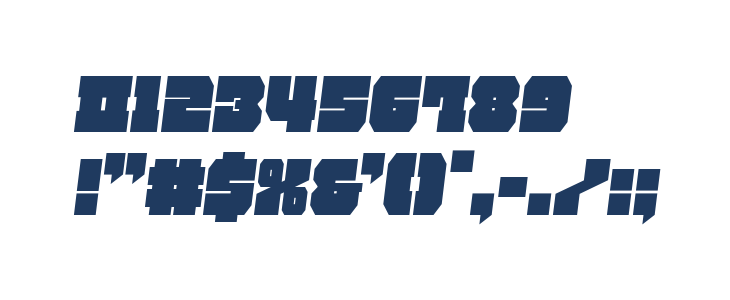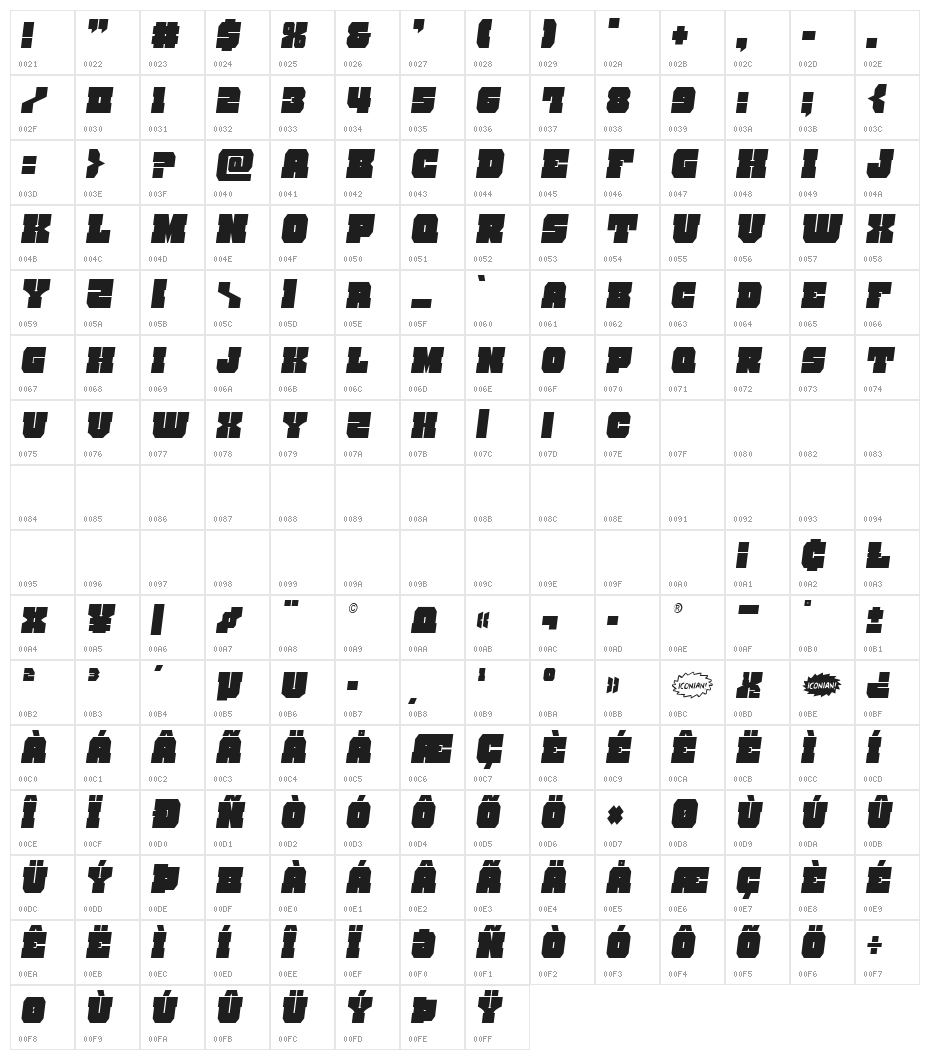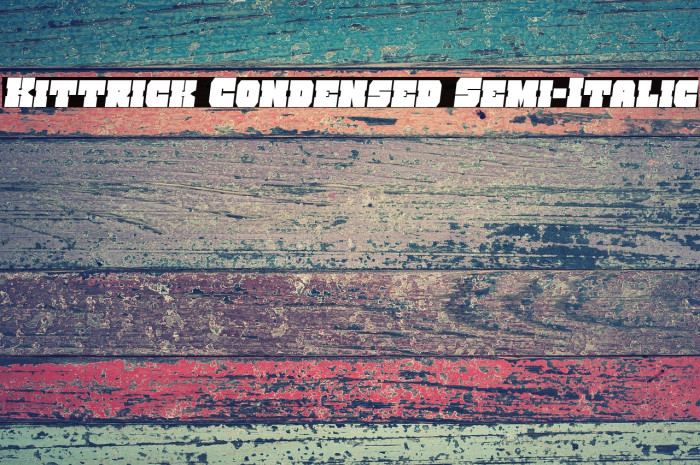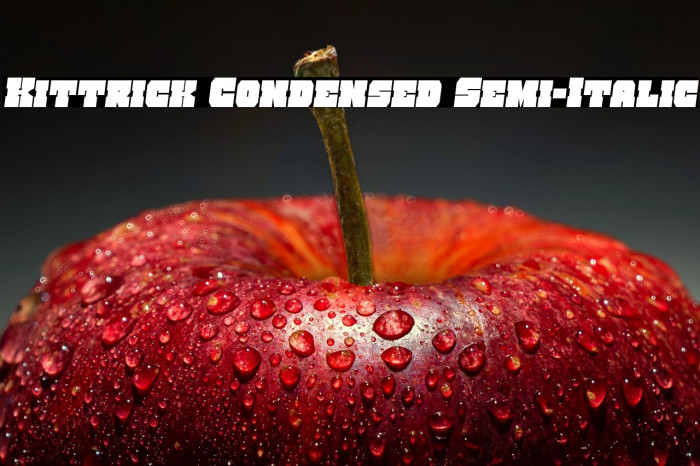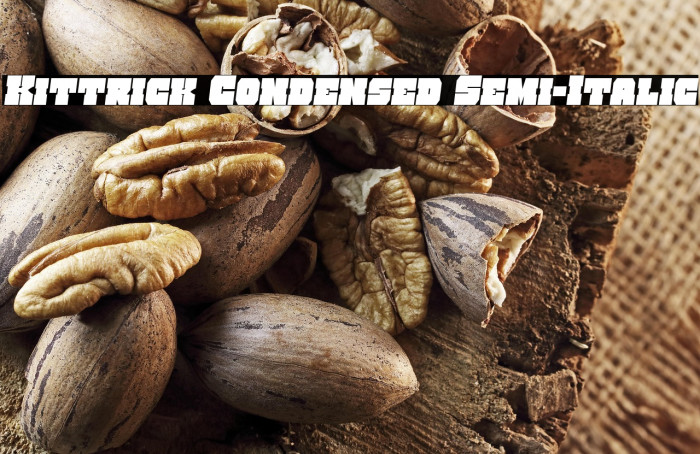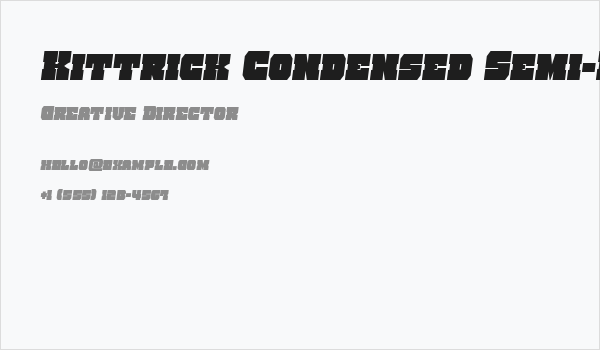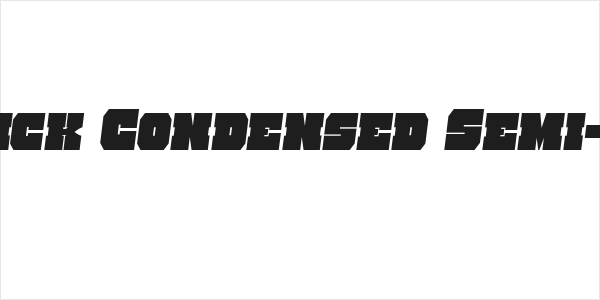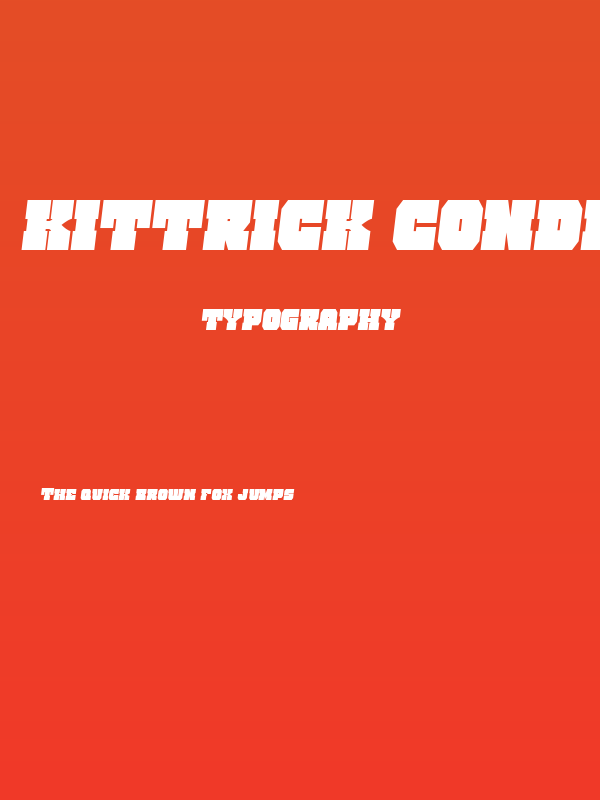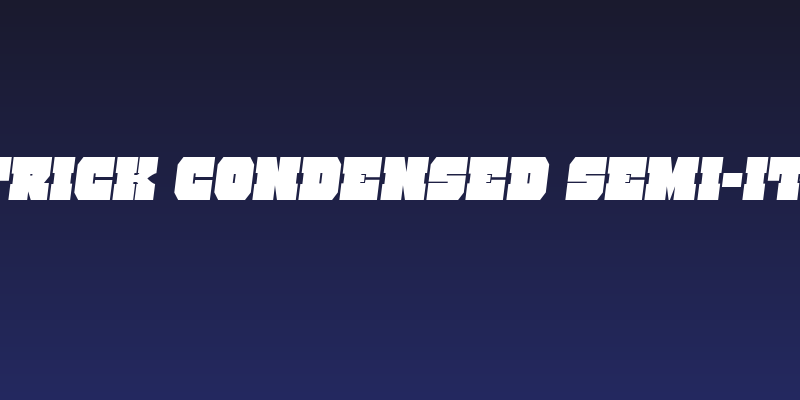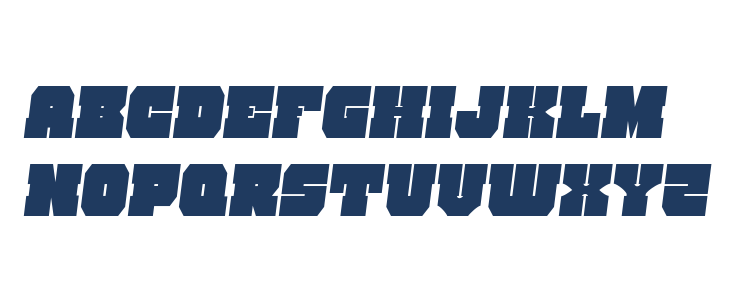
Kittrick Condensed Semi-Italic Font
Kittrick Condensed Semi-Italic Description
This font features a bold and impactful design with a condensed structure, giving it a strong presence. The semi-italic style adds a slight slant to the characters, enhancing its dynamic appearance. Each letter is crafted with sharp, angular edges and a blocky form, making it ideal for attention-grabbing headlines or titles. The uppercase and lowercase letters maintain a consistent style, while the numbers and special characters are equally bold and distinct. The overall design is modern and assertive, suitable for projects that require a commanding visual element.
| Proposed Projects | Ideal for posters, logos, branding, and headlines that need a strong visual impact. |